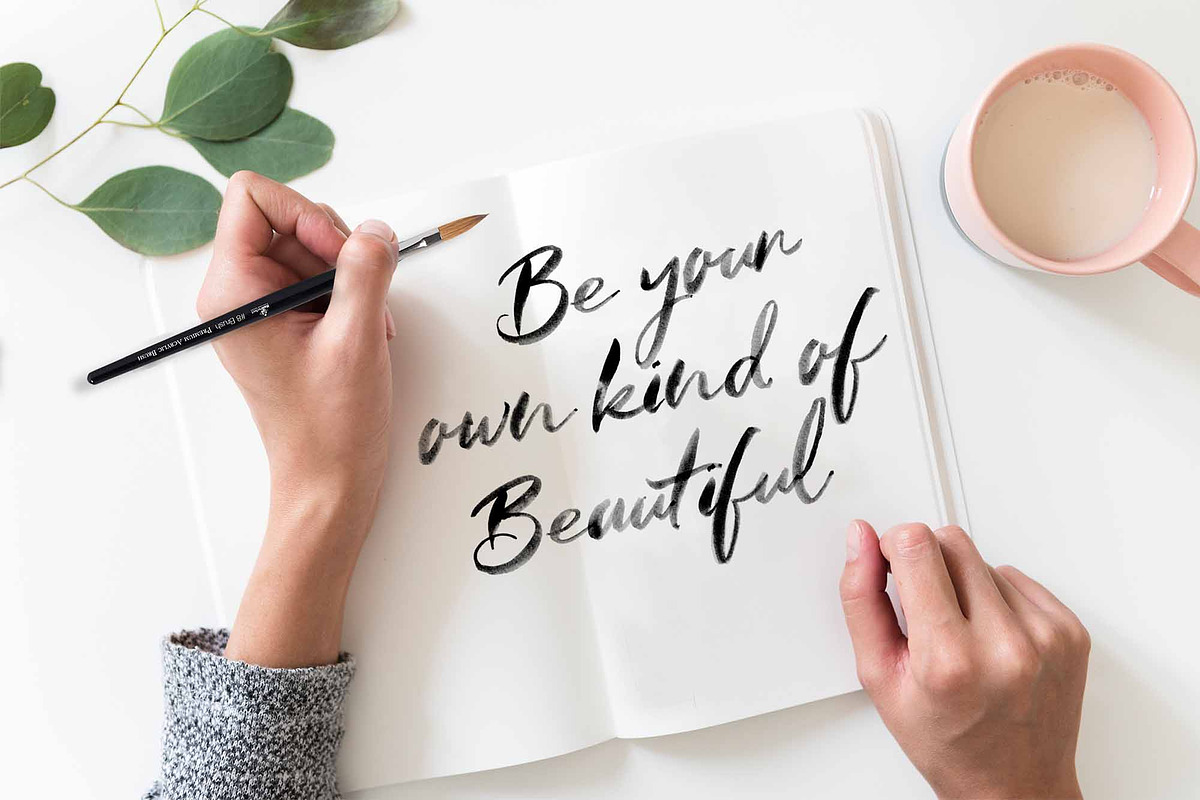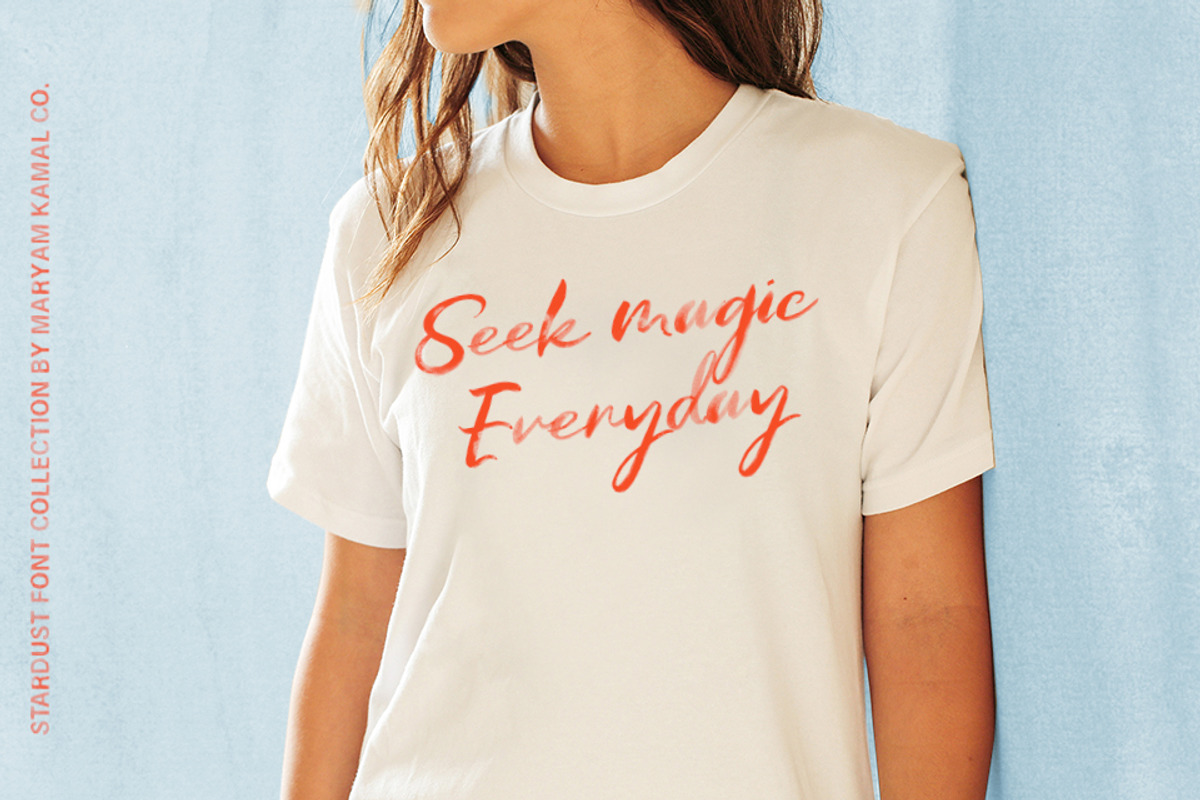
Stardust Font Collection
Say hello to the Stardust Font Collection everyone!! A super feminine and elegant hand-painted watercolor SVG Font Collection. This font was created by converting organic hand-painted watercolor lettering, preserving its transparency and watercolor detail to make sure that as you type out, it looks as realistic as possible! Cool right!?
Works beautifully for wedding invitations, Birthday cards, Thank you cards, merchandise, packaging and branding and custom made items!
Uppercase and Lowercase Alternate Letters: the whimsical SVG font comes in two variations, with a complete alternative set of Uppercase and Lowercase letters - to allow you to pick and choose which letters suit your design.